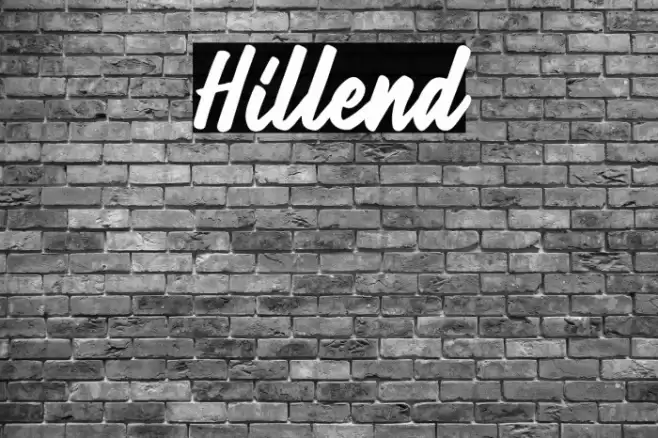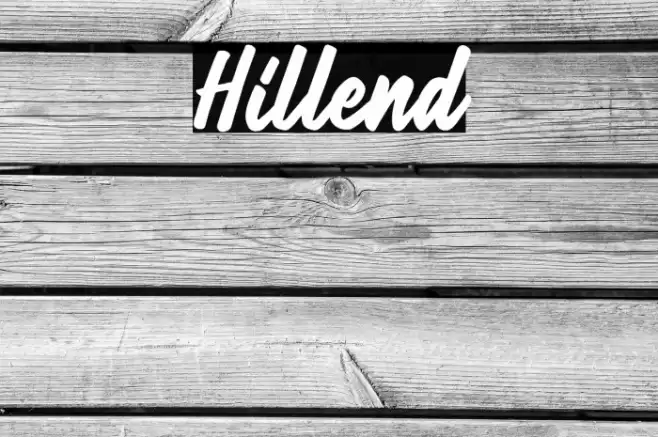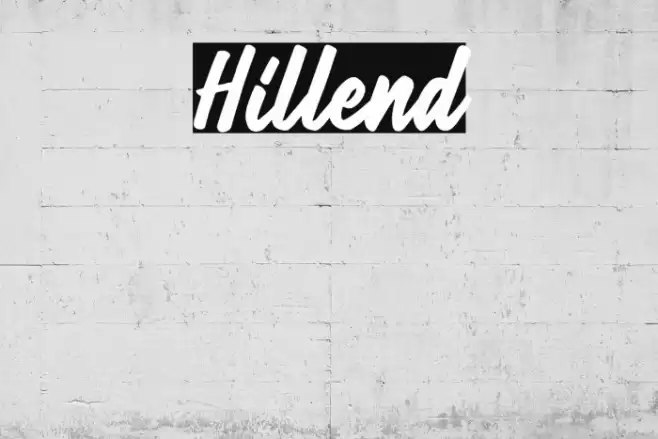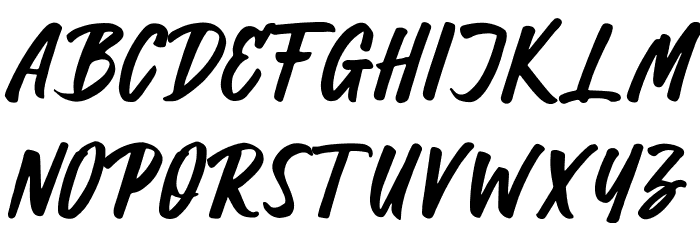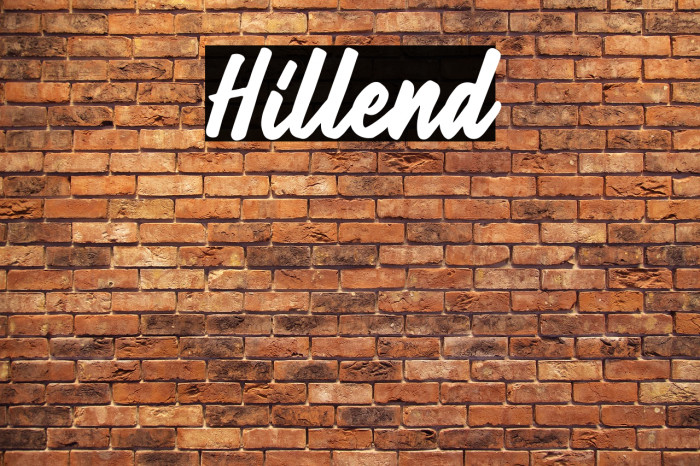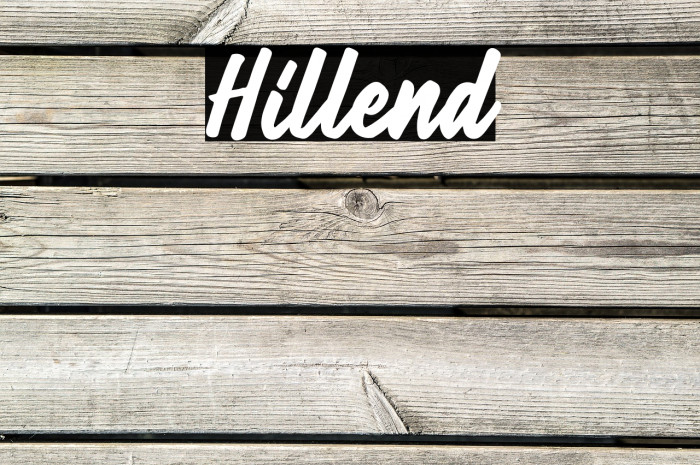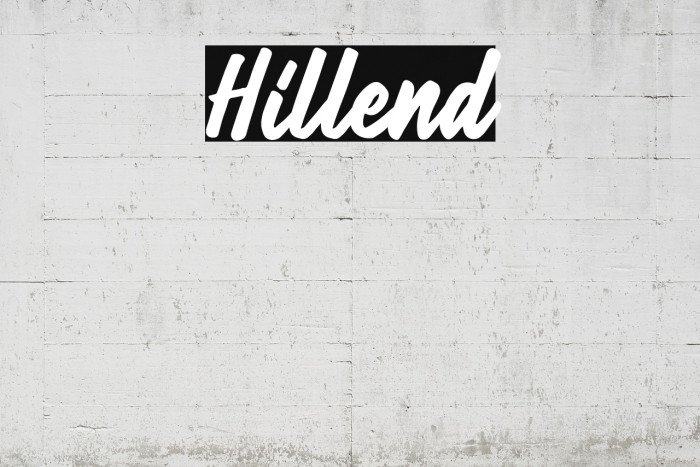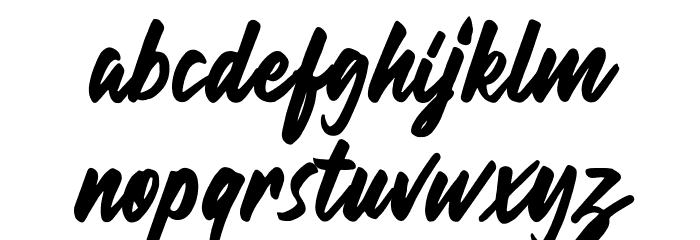
Hillend Font
Hillend Description
This font exhibits a bold and expressive handwritten style, characterized by its fluid and dynamic strokes. The letters are slightly slanted, giving a sense of motion and energy. The uppercase and lowercase letters are well-proportioned, maintaining a consistent flow throughout. The strokes are thick, providing a strong visual impact, while the rounded edges add a touch of softness. This font is ideal for projects that require a personal and informal touch, such as invitations, greeting cards, or branding materials that aim to convey creativity and approachability.
A bold, expressive handwritten font with fluid, dynamic strokes from Uncategorized fonts.
- Proposed Projects: Ideal for invitations, greeting cards, branding materials, and creative projects.